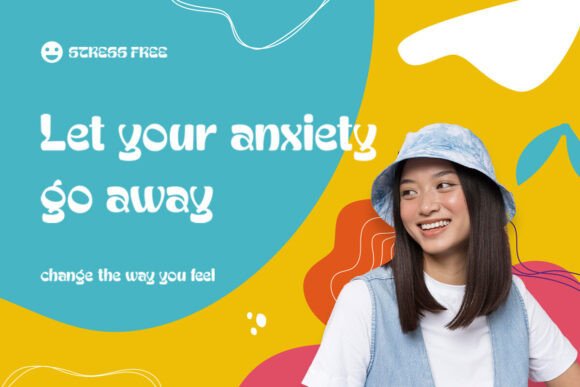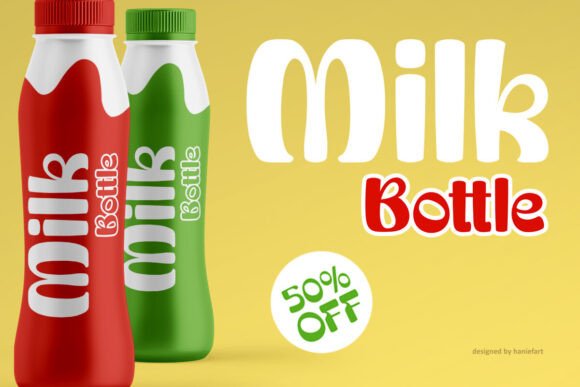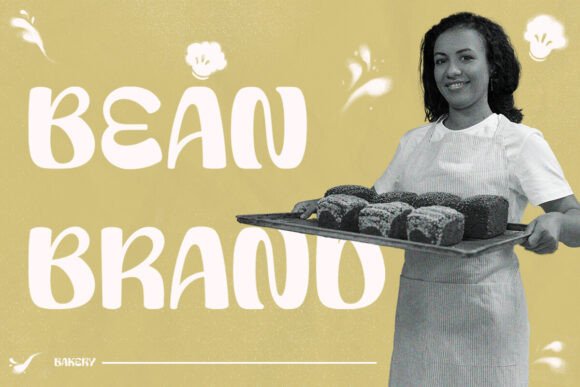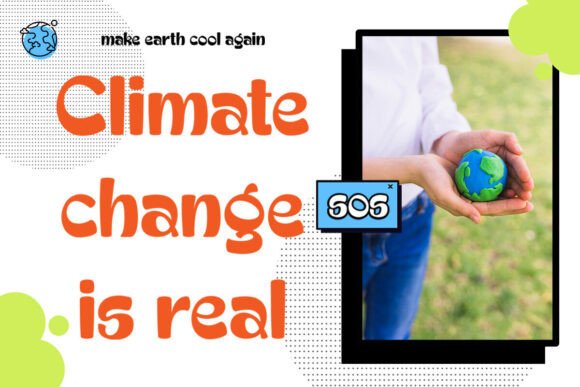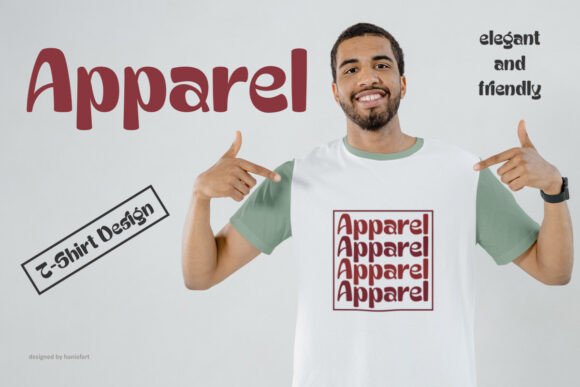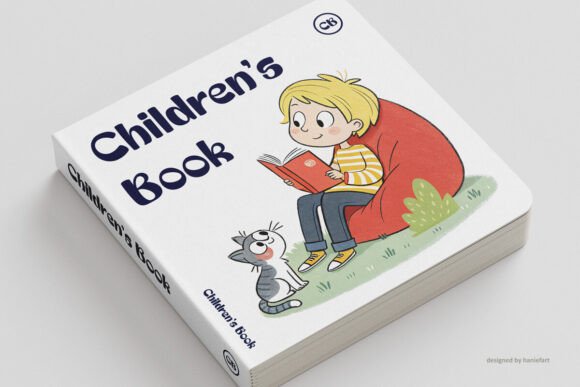
Introduction to Montanes Font
Remember that moment when you’re working on a creative project, and you need the perfect font to elevate your design? You browse through your design resource, and suddenly, you stumble upon a font that changes everything. For designers, finding the right font can be a game-changer. It’s the difference between a good design and a great one.
Enter the Montanes Font, a standout display font that’s been making waves in the design community. With its contemporary touch, sobriety, and pure aesthetics, this font is sure to leave a bold mark on your project. Whether you’re working on a brand identity, business card, or comic book cover, Montanes Font seamlessly transforms the ordinary into the extraordinary.
Key Features of Montanes Font
- High-quality design resource ideal for creative projects, including logos, branding, and graphics.
- Features a transparent background, making it easy to use in various design scenarios.
- Includes a range of font styles and weights, allowing for flexibility and customization in design projects.
- Designed with a high-resolution format (up to 300 DPI), ensuring crisp and clear text display in print and digital applications.
Honest Review: Montanes Font
I recently had the chance to work with the Montanes Font on a creative project, and I was impressed by its unique features. One of the standout aspects of this font is its versatility – it can be used for a wide range of design applications, from headings to body text. ✨
The Montanes Font comes with a transparent background, making it easy to integrate with other design elements. I also appreciated the high quality of the font, which ensures that it looks great even at larger sizes. The free download option is a definite bonus, as it makes this font accessible to designers of all levels.
- What works well: Versatility, high quality, transparent background, free download option
- What doesn’t work well: Limited customization options ⚠️
Overall, I was pleasantly surprised by the Montanes Font. While it may not offer the most extensive customization options, its unique features and high quality make it a valuable addition to any design resource. I would definitely recommend it to designers looking for a reliable and versatile font.
Tips for Getting the Most Out of Montanes Font
To get the most out of Montanes Font, use it in combination with other high-quality design elements. Experiment with different font sizes, colors, and styles to create a unique and visually appealing design.